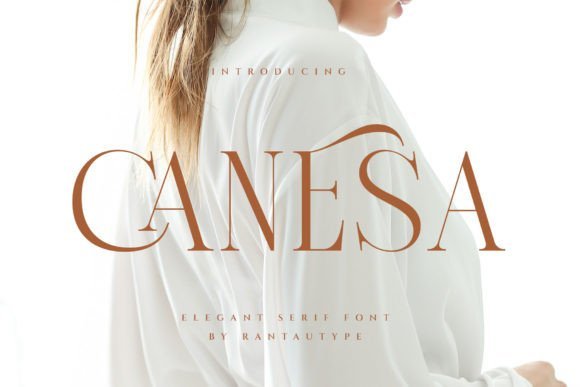
Introduction to Canesa Font
Canesa is an elegant serif font, that features a very delicate and classy look.
Not too thin and not too thick, balanced and varied, Canesa was designed to enhance the beauty of your projects .